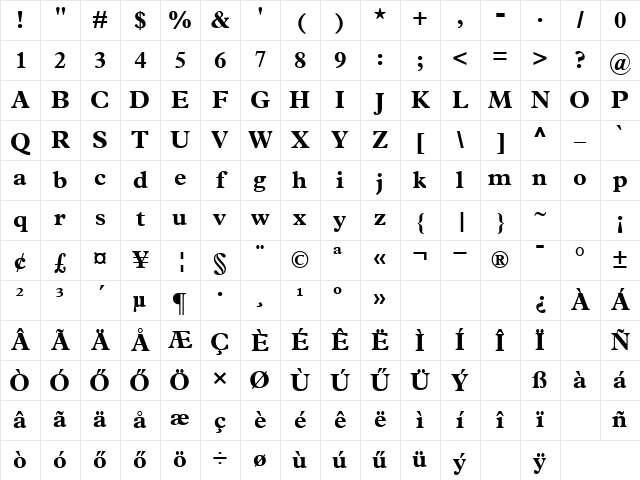
Hu_Perfect Bold Regular
Design Context for Hu_Perfect Bold
Hu_Perfect Bold is a composed and adaptable typeface that performs quietly and consistently across a wide range of design contexts. Its bold stroke weight gives it real presence on the page.